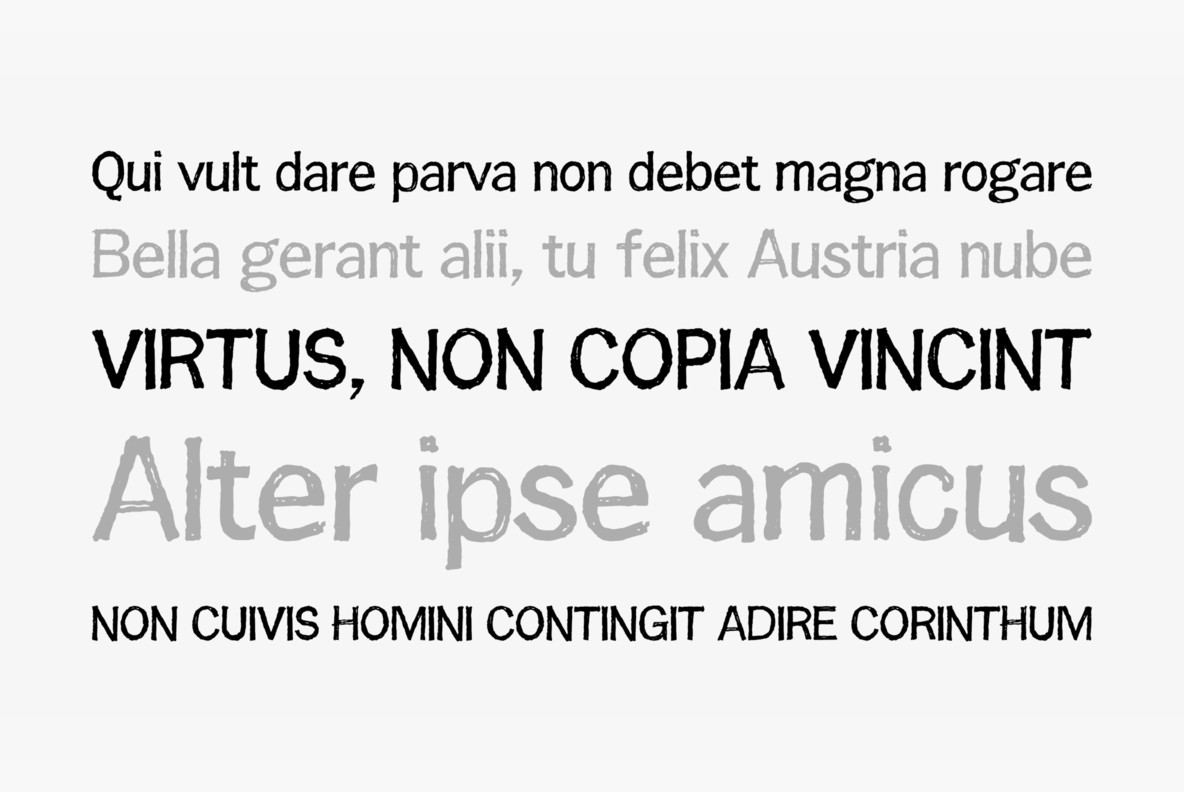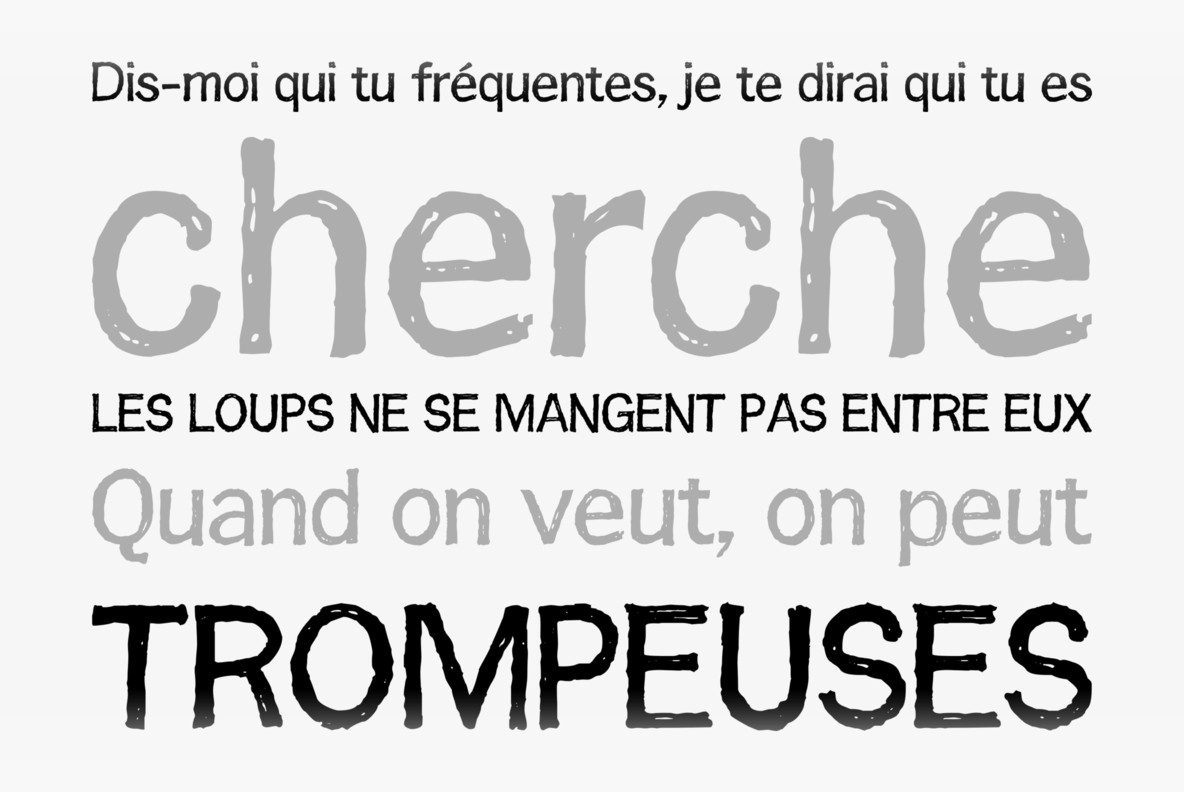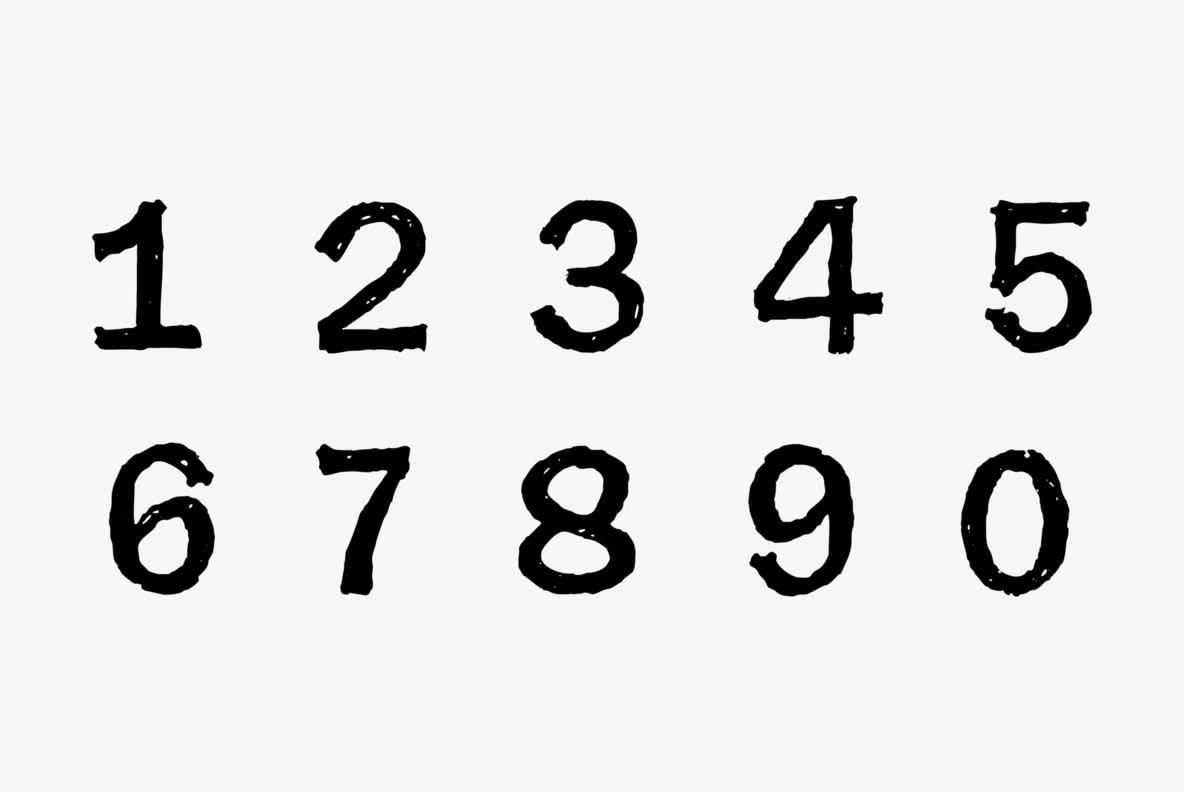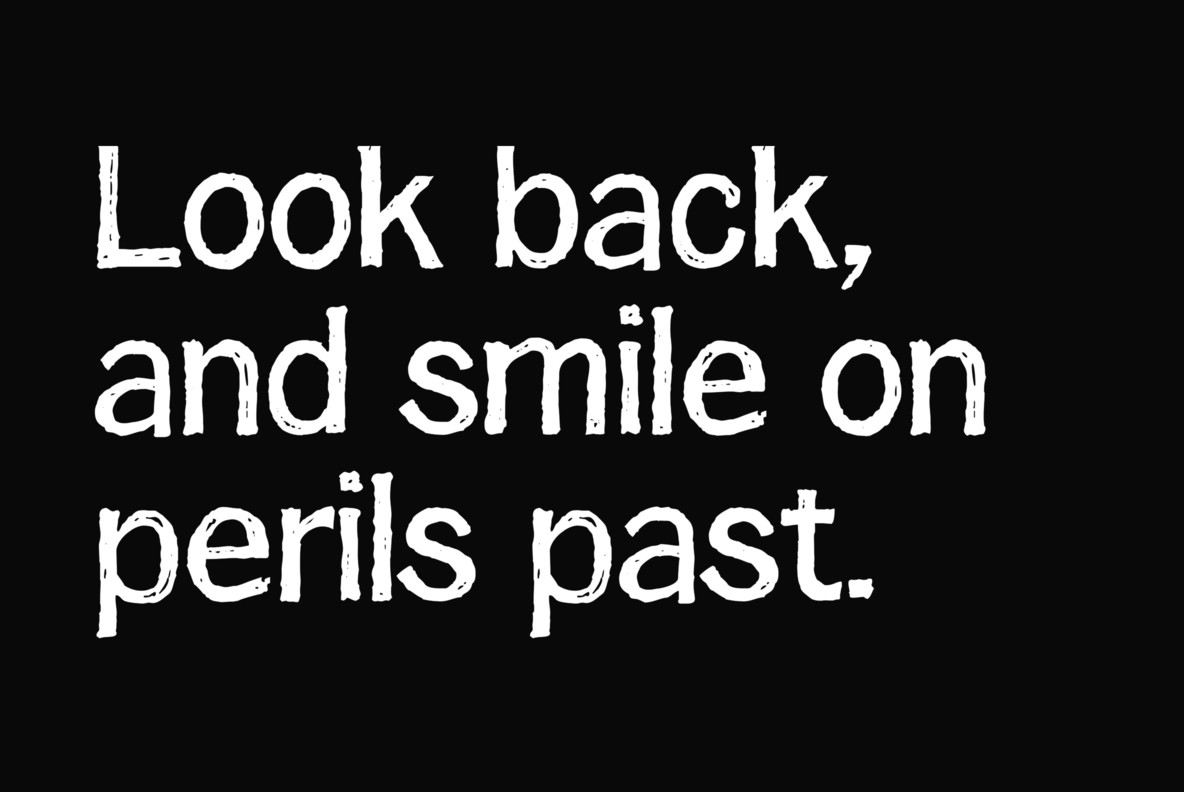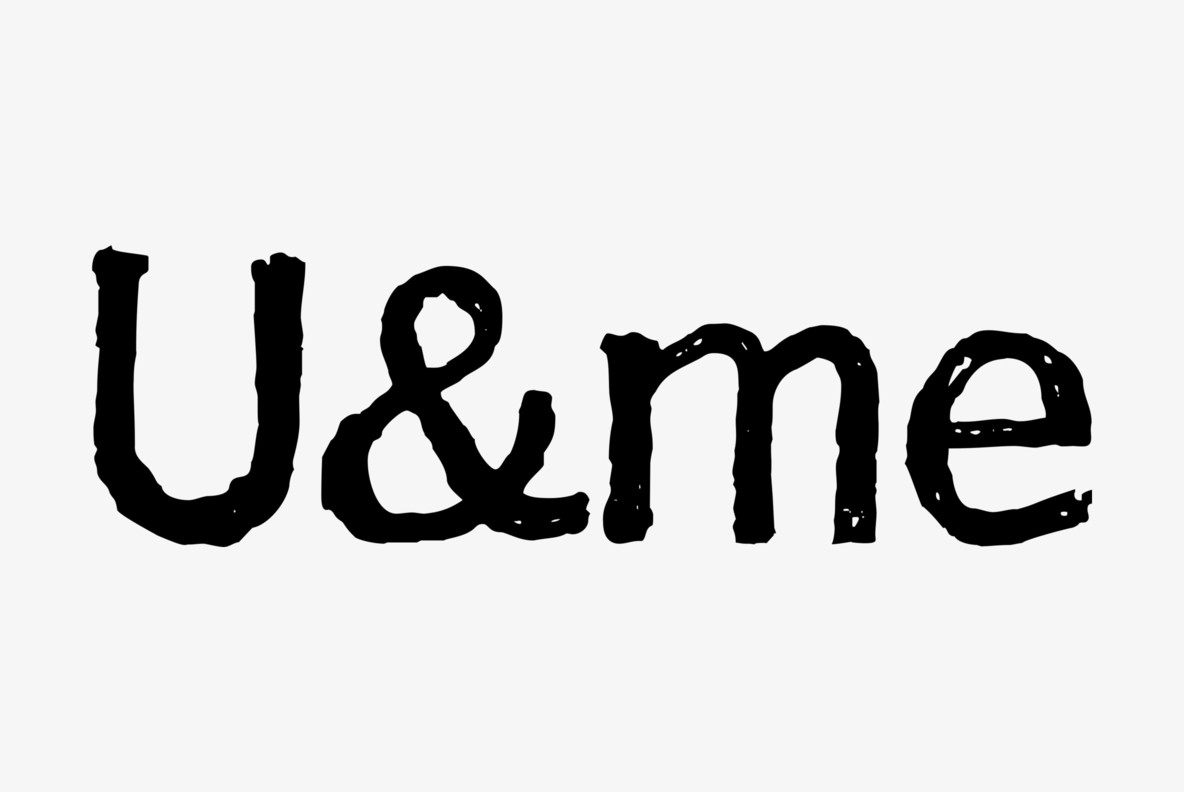
Franklin Gothic Hand Light Font
Franklin Gothic Hand Light is part of a series of hand-drawn fonts from way back in time – before computers changed the way we worked.
When I was in advertising – before computers – a very time consuming part of my daily work was sketching headlines. I used to be able to sketch headlines in Franklin Gothic, Times, Futura, Helvetica and several scripts.
We had a kind of huge inverted camera – which we called Lucy. We projected the alphabet onto a sheet of transparent paper, outlined the letters with a fineliner and then filled them in. It was very tedious work, but the resulting headline had its own charm and we had a permanent race going on who was best and fastest. I won most of the time! They used to call me the fastest “Magic Marker” this side of the Atlantic.